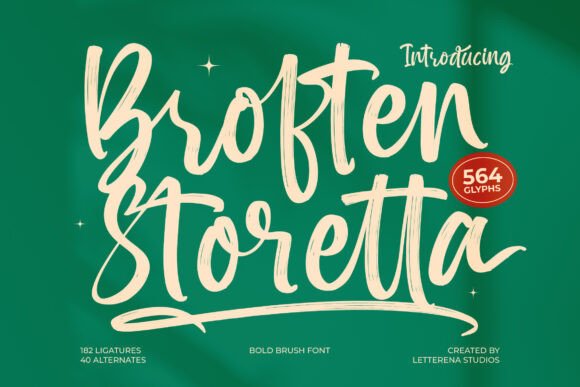
The Ultimate Guide to Broften Storetta Font: Elevate Your Designs with Luxury Script
Have you ever been in the middle of a design project, and suddenly, you just can’t seem to find the right font? I recall a particularly frustrating experience when I was working on a luxury branding project for a high-end fashion client. The brief required a font that exuded elegance, sophistication, and a touch of glamour. After hours of scouring through font libraries, I stumbled upon Broften Storetta – a stunning Bold Brush Font from Letterena. It was love at first sight! 💕
A Personal Review of Broften Storetta
What I Love About Broften Storetta ✨
• 💯 Luxurious and elegant: Broften Storetta boasts a beautiful, flowing script that instantly elevates any design to a luxury feel.
• 🎨 Versatile: This font is perfect for a wide range of projects, from logos and branding to homeware designs, product packaging, and more.
• 👍 Easy to read: Despite its elegant and cursive nature, Broften Storetta remains highly legible, even at smaller font sizes.
• 🤩 OpenType features: This font comes with a range of OpenType features, including glyphs and stylistic alternates, allowing for endless creativity.
While Broften Storetta is an exceptional font, there are a few minor quirks to be aware of:
• 🤔 Limited use in body text: Due to its elegant and cursive nature, Broften Storetta might not be the best choice for lengthy body text. It’s better suited for headings, titles, and short paragraphs.
• ⚠️ Kerning issues: As with any font, you might encounter some kerning issues, especially when using it in combination with other fonts. Make sure to adjust the kerning to achieve the best results.
The Story Behind Broften Storetta
Broften Storetta was designed by the talented team at Letterena, with a vision to create a luxurious script font that would elevate designs to new heights. Inspired by the elegance of traditional calligraphy, Broften Storetta was crafted to bring a touch of sophistication and glamour to any project.
What type of projects is Broften Storetta suitable for? Broften Storetta is perfect for luxury branding, packaging, homeware designs, product packaging, mugs, quotes, posters, shopping bags, t-shirts, book covers, name cards, invitation cards, greeting cards, labels, photography, watermarks, and more.
Does Broften Storetta come with OpenType features? Yes, Broften Storetta comes with a range of OpenType features, including glyphs and stylistic alternates.